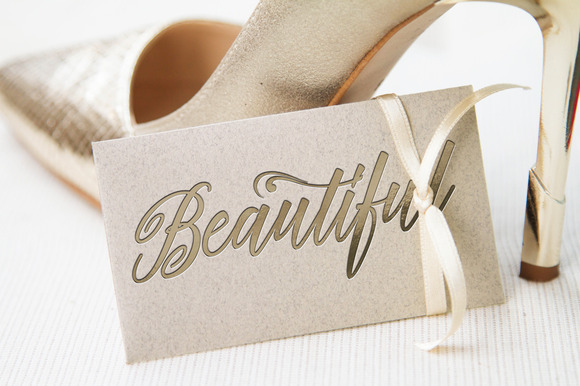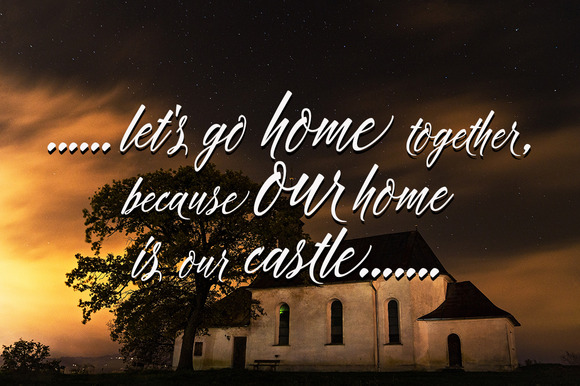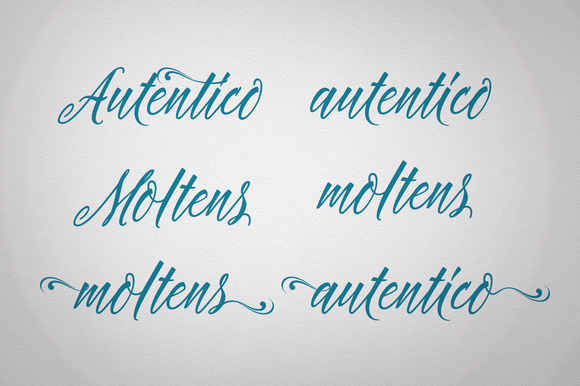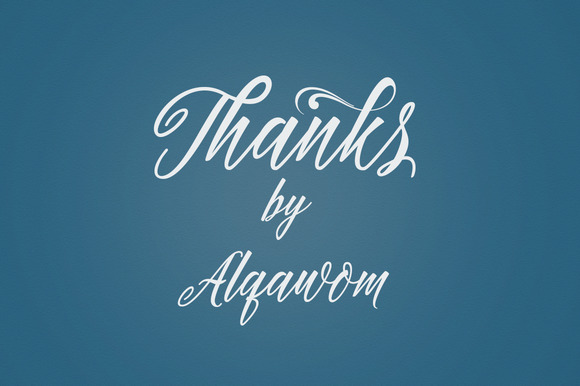
Introducing Branch Font: A Lovely Modern Calligraphy Typeface
Are you a designer or crafter looking for a unique and versatile font to elevate your creative projects? Look no further than Branch Font, a stunning modern calligraphy typeface that combines the elegance of classic calligraphy with the freshness of modern writing styles. In this article, we’ll dive into the world of Branch Font, exploring its features, uses, and benefits for designers and crafters alike.
A Perfect Blend of Classic and Modern Calligraphy
Branch Font is a beautiful blend of traditional and contemporary calligraphy styles, making it a perfect fit for a wide range of design projects. Its classic roots provide a sense of sophistication and timelessness, while its modern twist adds a touch of freshness and creativity. This unique combination makes Branch Font an excellent choice for designers who want to add a personal touch to their work.
Features of Branch Font
So, what makes Branch Font so special? Here are some of its key features:
- Modern calligraphy style: Branch Font boasts a beautiful, flowing script that’s perfect for creating elegant headings, logos, and titles.
- Classic roots: With its roots in traditional calligraphy, Branch Font exudes a sense of sophistication and refinement.
- Versatile: This font is incredibly versatile and can be used for a wide range of design projects, from invitations and greeting cards to logos, posters, and more.
- Easy to read: Despite its elegant, cursive style, Branch Font is surprisingly easy to read, making it perfect for body text and longer design projects.
Uses of Branch Font
So, what can you use Branch Font for? The possibilities are endless! Here are some ideas to get you started:
- Headings and titles: Add a touch of elegance to your headings and titles with Branch Font.
- Logos and branding: Create a unique and memorable logo for your business or brand with Branch Font.
- Invitations and greeting cards: Make your invitations and greeting cards stand out with the beautiful, flowing script of Branch Font.
- T-shirt designs: Create eye-catching t-shirt designs with Branch Font, perfect for fashion brands, events, or promotions.
- Posters and flyers: Add a touch of sophistication to your posters and flyers with Branch Font.
- Labels and packaging: Use Branch Font to create beautiful labels and packaging for your products.
- Book covers and brochures: Create stunning book covers and brochures with Branch Font, perfect for authors, publishers, and marketers.
So, what are the benefits of using Branch Font for designers and crafters? Here are a few:
- Elegance and sophistication: Add a touch of elegance and sophistication to your designs with Branch Font.
- Versatility: Use Branch Font for a wide range of design projects, from logos and headings to invitations and posters.
- Unique and creative: Stand out from the crowd with Branch Font’s unique and creative style.
In conclusion, Branch Font is a stunning modern calligraphy typeface that’s perfect for designers and crafters looking to add a touch of elegance and sophistication to their creative projects. With its classic roots, modern twist, and versatility, Branch Font is an excellent choice for a wide range of design projects. Whether you’re creating headings, logos, invitations, or posters, Branch Font is sure to impress. So why wait? Give Branch Font a try today and take your designs to the next level!